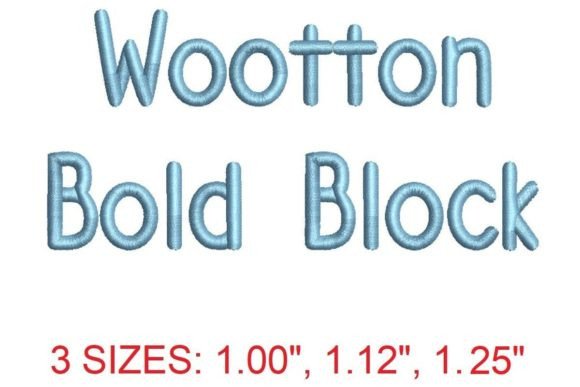
Wootton Block Bold Embroidery Font
As an embroidery designer with years of experience, I’ve seen countless fonts and styles come and go. But the Wootton Block Bold Embroidery Font stands out for its bold presence and versatility. It’s a font that commands attention while still maintaining a level of elegance that makes it suitable for a wide range of handmade gifts and personalized products.
The First Impression: Bold and Beautiful
From the moment you open the Wootton Block Bold Embroidery Font, you’re struck by its strong, clean lines. The font has a modern feel, but it also carries a sense of warmth that makes it perfect for heartfelt projects. Whether you're creating a baby blanket or a wedding towel, this font adds a touch of sophistication without being too formal.
The details are crisp and well-defined, which is essential for machine embroidery. There’s enough texture to make the design stand out on fabric, but not so much that it becomes overwhelming. It’s a font that feels both decorative and functional, making it ideal for embroidered towels, pillow covers, and custom home decor.
How Wootton Block Bold Embroidery Font Can Be Used
This font is incredibly versatile. For baby embroidery, it adds a personal touch to onesies, blankets, and burp cloths. For wedding gifts, it can be used to create elegant monograms on towels, table linens, or even bridesmaid accessories. Family keepsakes like personalized pillows or aprons also benefit from the font’s strong visual impact.
Nursery decor, such as wall hangings or mobiles, can be enhanced with the Wootton Block Bold Embroidery Font. It works well on thick blankets, stretchy baby clothes, and textured towels. The font’s boldness ensures that even on dark fabrics, the design remains visible and striking.
For small business owners and Etsy sellers, this font offers a way to create high-quality, unique products. Whether you're making tote bags, custom gift boxes, or printable mockups, the Wootton Block Bold Embroidery Font adds a professional look that appeals to buyers looking for handmade charm.
Practical Considerations for Embroidery Projects
When working with the Wootton Block Bold Embroidery Font, there are a few practical concerns to keep in mind. Small lettering can sometimes be challenging, especially if the design includes delicate shapes. It’s important to test the font on different fabrics before committing to a full project.
For dense details, consider the stitch density. A higher stitch count may be needed for intricate parts of the design, but this can affect how the embroidery looks on stretchy or thick materials. Using the right stabilizer is crucial—especially when working with textured towels or thick blankets.
Thread color contrast is another factor. On dark fabrics, lighter threads can make the design pop, while on lighter backgrounds, darker colors may be more effective. Always check your thread colors against the fabric to ensure the final product looks as intended.
Impact on Customer Trust and Emotional Value
The Wootton Block Bold Embroidery Font has a strong emotional appeal. It’s a font that feels meaningful, making it ideal for gifts that carry sentimental value. Whether it’s a baby’s first blanket or a wedding towel, the font helps convey the thoughtfulness behind the handmade product.
For small shop products and commercial embroidery projects, this font can elevate the perceived quality of your finished product. It adds a level of professionalism that can set your items apart from mass-produced alternatives. This is especially important for Etsy sellers who rely on visual appeal and craftsmanship to attract buyers.
When it comes to product photography, the Wootton Block Bold Embroidery Font ensures that your designs look sharp and clear. This makes it easier to create engaging listings and showcase your work in the best possible light.
Embroidery Tips for Best Results
To get the most out of the Wootton Block Bold Embroidery Font, start by creating a test stitch-out. This will help you see how the design looks on your chosen fabric and identify any issues before starting a larger project.
Check small details after stitching to ensure that everything is clean and precise. Compare thread colors to the fabric to avoid mismatched tones. Test the design on similar fabric to see how it performs under real conditions.
Confirm the hoop size required for the design. Some fonts may need a larger hoop than others, so make sure your machine is compatible. Review the stitch density to avoid overcrowding the design, which can cause puckering or distortion.
Conclusion: A Reliable Choice for Personalized Gifts
The Wootton Block Bold Embroidery Font is a valuable addition to any embroidery designer’s collection. Its bold style, clean lines, and adaptability make it perfect for a wide range of handmade gifts and personalized products. Whether you’re creating baby items, wedding towels, or custom home decor, this font adds a touch of class and character that resonates with customers.
For those looking to enhance their creative offerings, the Wootton Block Bold Embroidery Font is a reliable choice that combines functionality with aesthetic appeal. It’s a font that not only looks good but also performs well, making it a must-have for anyone involved in machine embroidery design or handmade product creation.